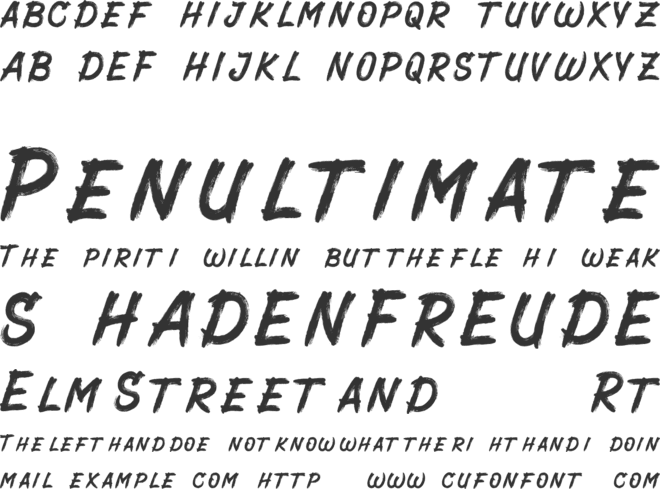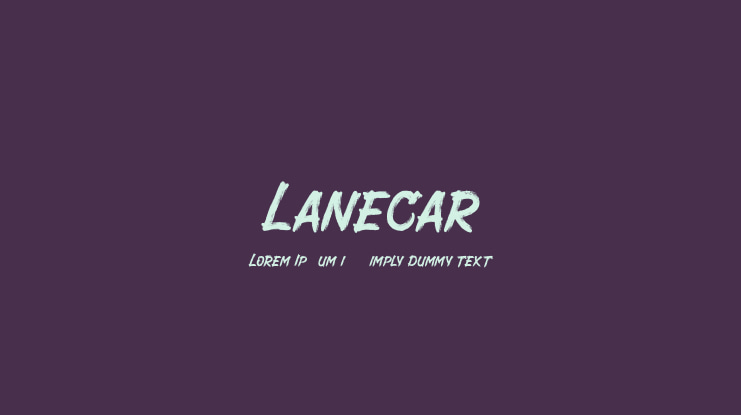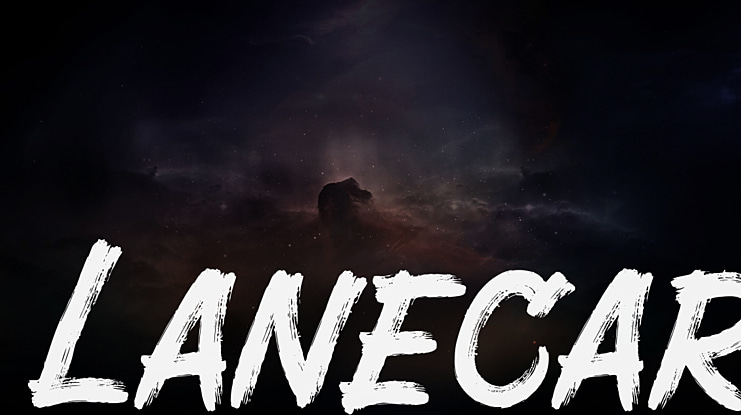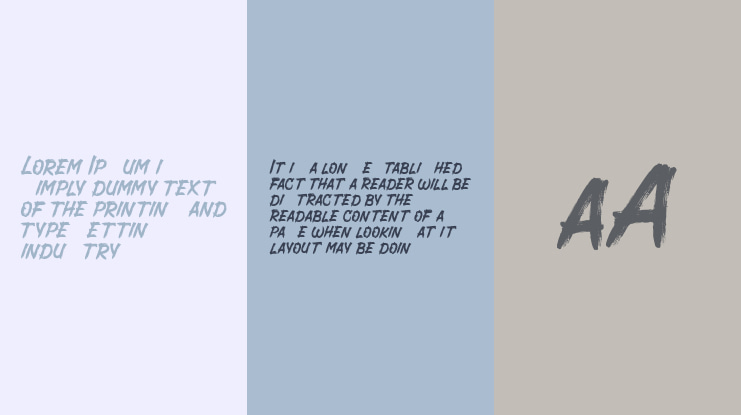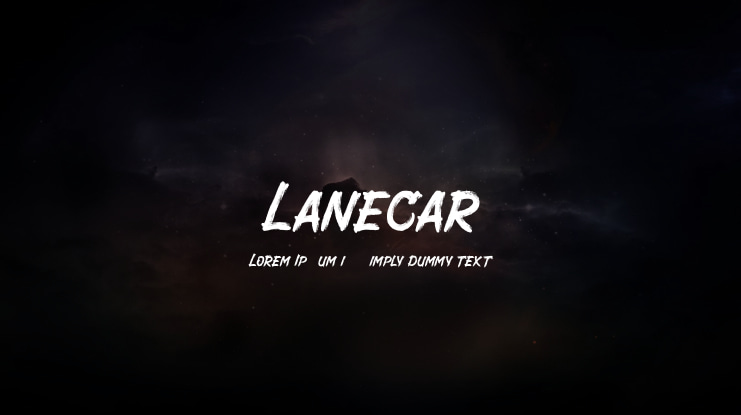
Lanecar Font
Lanecar Headline is an original hand-drawn brush font from the font designer. Very thick with brush strokes that are still visible so that it adds a rough impression. Perfect for display purposes and headlines. Font features include: